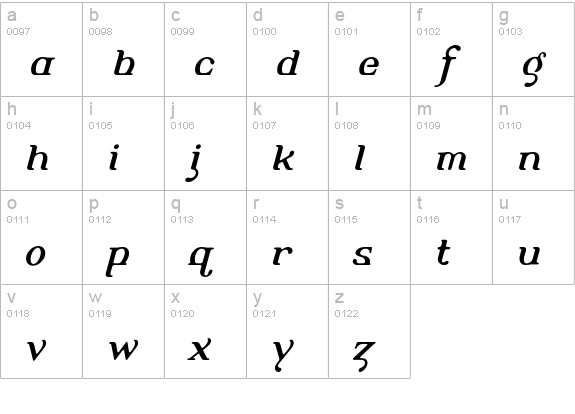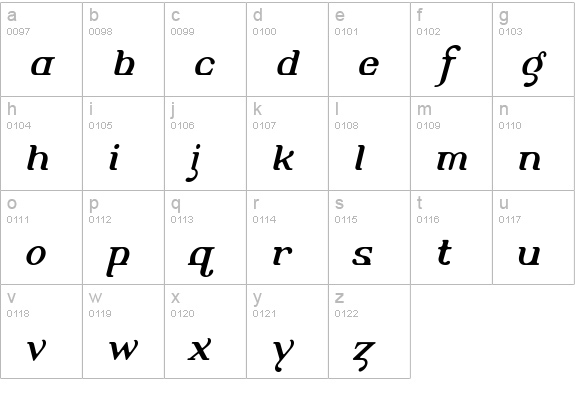
AlembicBeta-RegularItalicTwo font is a sleek and modern typeface that exudes sophistication and elegance. Its italicized style adds a touch of flair, making it perfect for adding a touch of sophistication to any design project. The font features clean lines and a contemporary feel, making it versatile for various uses from branding to editorial designs. The best part about AlembicBeta-RegularItalicTwo font is that it is available for free download at FontsMarket.com. This means that you can access this high-quality font without any cost, making it an excellent choice for budget-conscious designers looking to elevate their projects. Don't miss out on the opportunity to enhance your designs with this stylish and professional font that is just a click away.